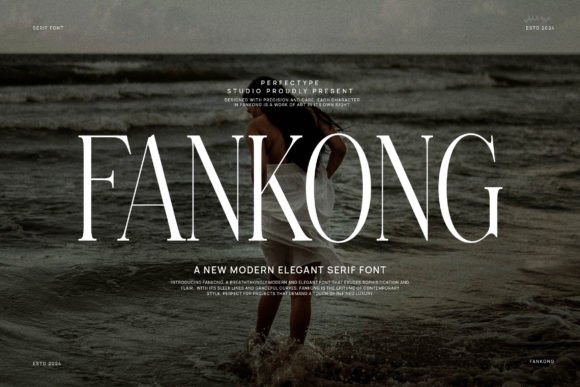
Fankong Font: Elevate Your Designs with Modern Elegance
In the world of typography, fonts play a crucial role in conveying messages, expressing emotions, and creating lasting impressions. For designers, artists, and marketers, finding the perfect font can be a daunting task. However, if you’re looking for a modern and elegant serif font that can elevate your designs, look no further than Fankong Font. In this article, we’ll explore the features, benefits, and uses of Fankong Font, and why it’s an excellent choice for your design projects.
What is Fankong Font?
Fankong Font is a sophisticated serif font designed to meet the demands of modern design. Its sleek lines, refined curves, and balanced proportions make it an ideal choice for a wide range of applications. Whether you’re working on branding projects, logos, social media posts, advertisements, labels, product packaging, photography, wedding designs, watermarks, invitation product designs, stationery, or any other project, Fankong Font is sure to impress.
Key Features of Fankong Font
- Modern and Elegant Design: Fankong Font boasts a contemporary and refined design that exudes sophistication and style.
- Serif Font: As a serif font, Fankong Font features small lines or flourishes at the ends of its strokes, giving it a classic and timeless look.
- High Readability Level: Fankong Font is designed to be highly readable, making it perfect for body text, headings, and titles.
- Versatile: Fankong Font can be used for a wide range of applications, from digital designs to print materials.
Benefits of Using Fankong Font
So, why choose Fankong Font for your design projects? Here are some benefits that make it an excellent choice:
- Enhance Your Brand’s Image: Fankong Font’s modern and elegant design can help elevate your brand’s image and create a lasting impression on your audience.
- Increase Readability: With its high readability level, Fankong Font ensures that your message is conveyed clearly and effectively.
- Stand Out from the Crowd: Fankong Font’s unique design makes it stand out from other fonts, allowing your designs to grab attention and leave a lasting impact.
Uses of Fankong Font
Fankong Font is an incredibly versatile font that can be used for a wide range of applications, including:
- Branding Projects: Use Fankong Font to create a consistent and professional brand image across all your marketing materials.
- Logos: Fankong Font’s modern and elegant design makes it perfect for creating logos that make a lasting impression.
- Social Media Posts: Elevate your social media posts with Fankong Font’s refined design and high readability level.
- Advertisements: Use Fankong Font to create eye-catching advertisements that grab attention and drive results.
- Labels and Product Packaging: Fankong Font is perfect for creating labels and product packaging that stands out on store shelves.
- Photography: Add a touch of elegance to your photography with Fankong Font’s sophisticated design.
- Wedding Designs: Use Fankong Font to create beautiful wedding designs, including invitations, programs, and decorations.
- Watermarks: Fankong Font’s subtle design makes it perfect for creating watermarks that protect your images without distracting from the content.
- Invitation Product Designs: Create stunning invitation product designs that impress your audience with Fankong Font.
- Stationery: Use Fankong Font to create professional-looking stationery, including business cards, letterheads, and envelopes.
Tips for Using Fankong Font
To get the most out of Fankong Font, here are some tips to keep in mind:
- Use it Consistently: Use Fankong Font consistently across all your design materials to create a cohesive brand image.
- Experiment with Font Sizes: Experiment with different font sizes to create visual hierarchy and emphasize important information.
- Pair it with Other Fonts: Pair Fankong Font with other fonts to create a unique and visually appealing design.
- Pay Attention to Line Spacing: Make sure to adjust line spacing to ensure that your text is easy to read.
In conclusion, Fankong Font is an exceptional serif font that offers a modern and elegant design, high readability level, and versatility. Whether you’re a designer, artist, or marketer, Fankong Font is an excellent choice for your design projects. With its wide range of applications, benefits, and tips for use, Fankong Font is sure to elevate your designs and help you achieve your goals.